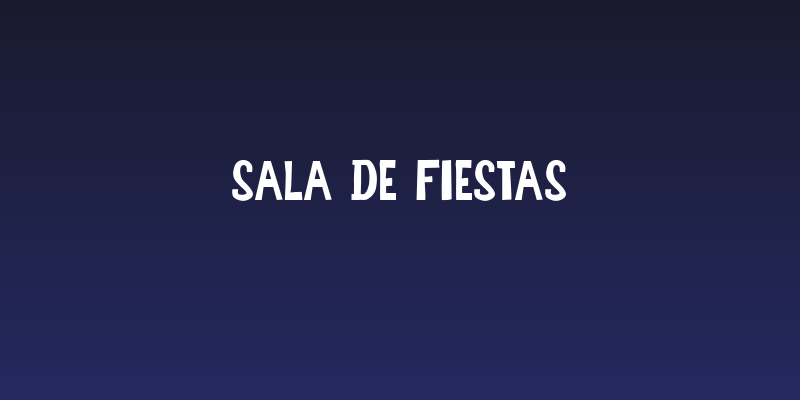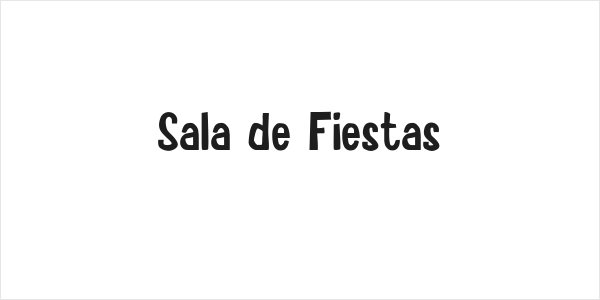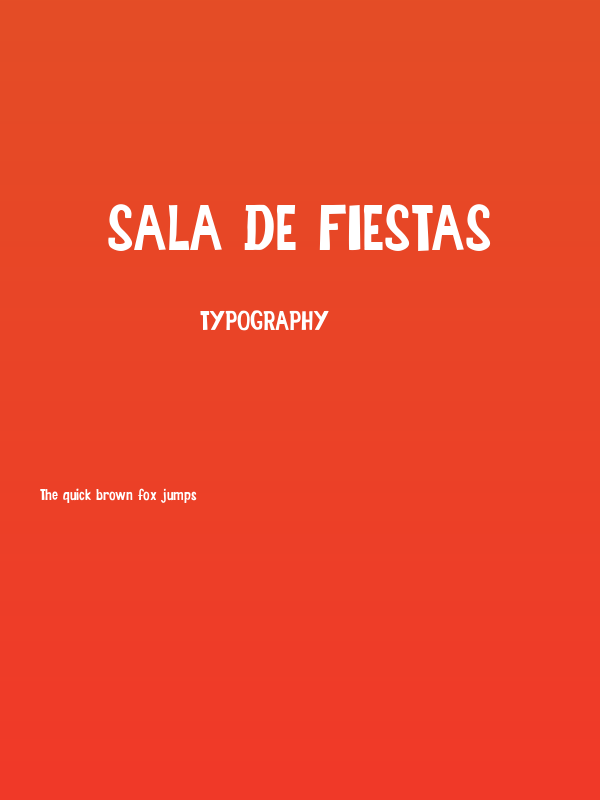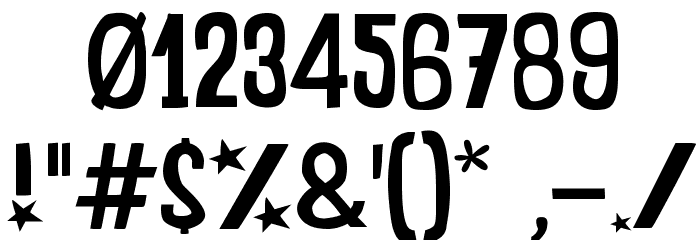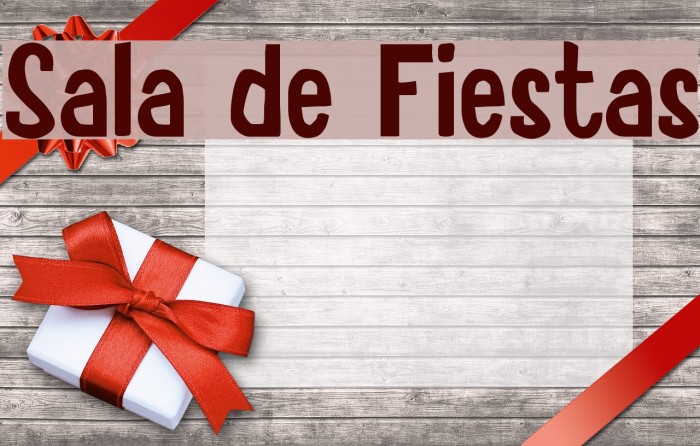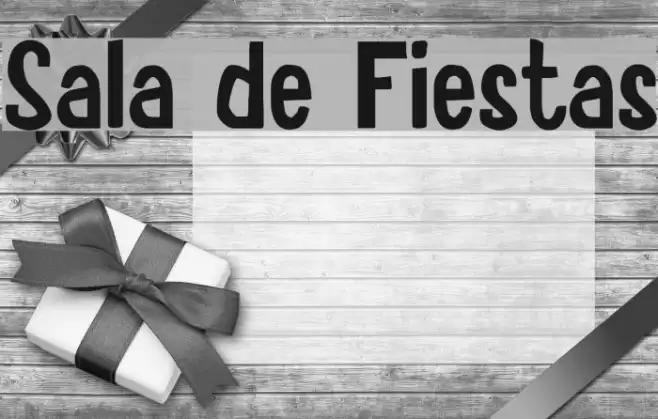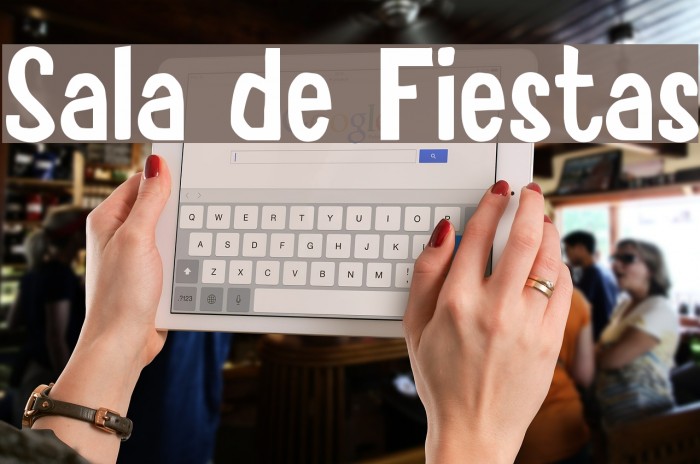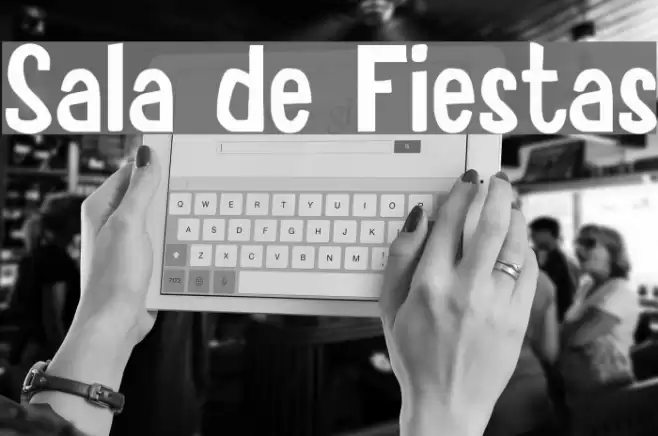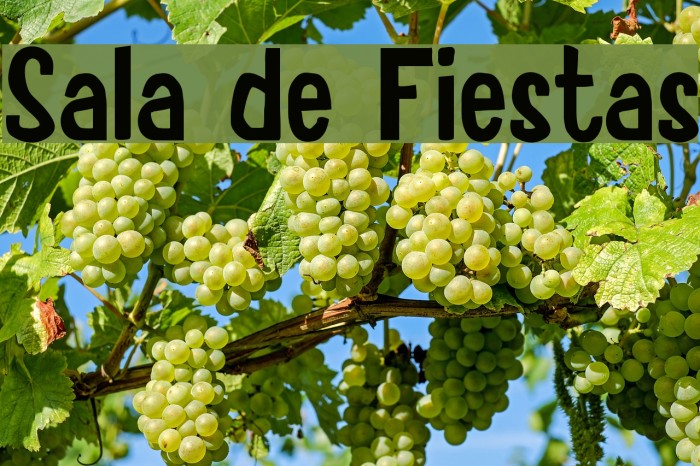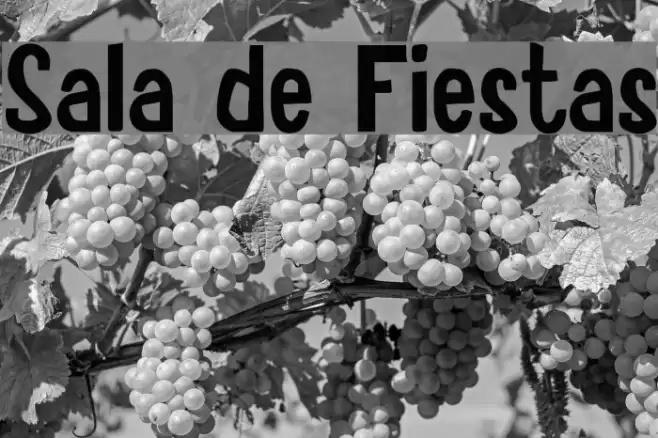
Sala de Fiestas Font
Sala de Fiestas Description
This font features a bold and playful design with a slightly condensed appearance. The uppercase letters are tall and commanding, while the lowercase letters maintain a consistent and harmonious flow. The numerals are clear and distinct, making them easily readable. Special characters are creatively styled, adding a touch of whimsy to the overall look. The font's strokes are uniform, with medium contrast, giving it a balanced and approachable feel. Its unique character shapes make it suitable for eye-catching designs.
| Width | Condensed |
| Overall Style | Playful, Decorative |
| Use Case | Headlines, Posters, Branding |
| Proposed Projects | Ideal for party invitations, event posters, playful branding, and children's book covers. |